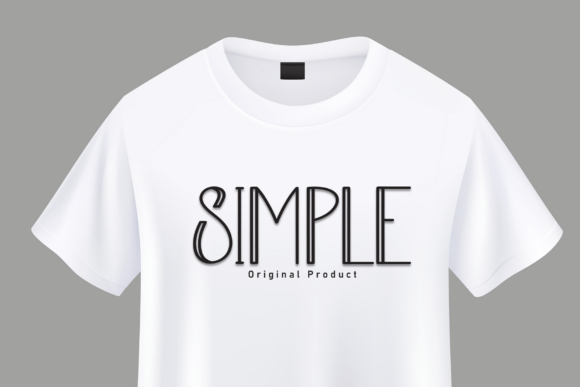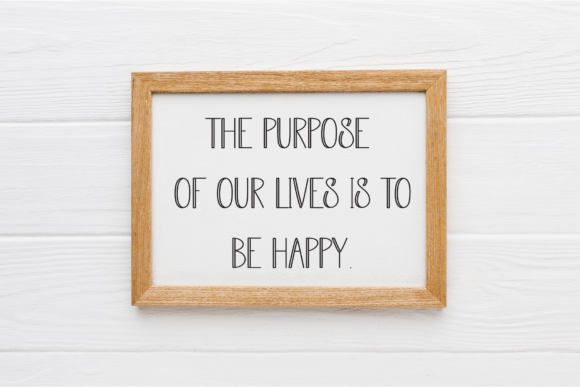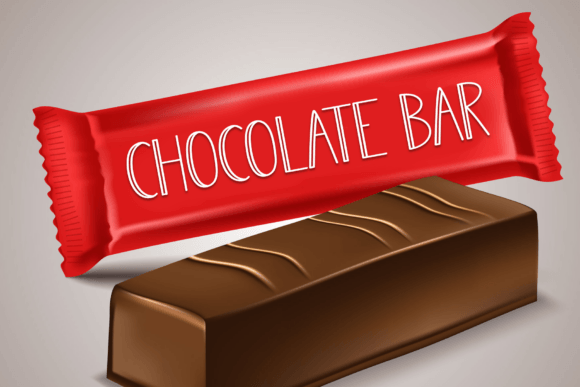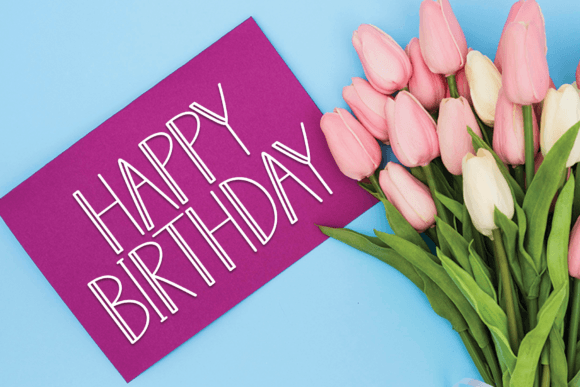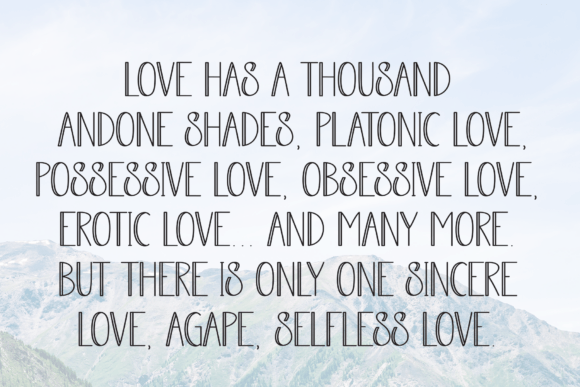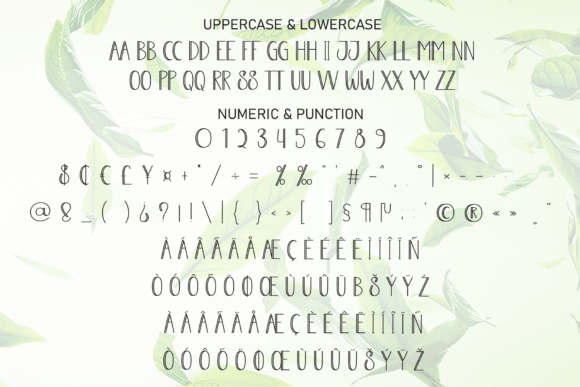
Introducing Greentea Font: The Perfect Blend of Whimsy and Charm
Are you tired of using the same old fonts for your design projects? Look no further! We’re excited to introduce Greentea Font, a charming and amiable handwritten display font that’s sure to bring a touch of sweetness and affability to your creations. This delightful font is perfect for designers and crafters who want to add a playful and lighthearted stroke to their work.
A Font that Brings Fun and Joy
Greentea Font is designed to bring an element of fun and joy to your design projects. Whether you’re creating wedding invitations, greeting cards, or any other type of design project, this font is sure to make it stand out. With its unique and eye-catching style, Greentea Font can effortlessly transform mundane text into a masterpiece that’s sure to capture the attention of your audience.
Wedding invitations and greeting cards are special occasions that deserve a font that’s just as special. Greentea Font is the perfect choice for these types of projects, as it adds a touch of elegance and sophistication while still being playful and fun. Imagine sending out wedding invitations that are not only informative but also visually stunning, or greeting cards that make the recipient feel special and loved.
Elevate Your Design Projects with Greentea Font
Greentea Font is not just limited to wedding invitations and greeting cards. This versatile font can be used to elevate any design project that needs a playful and lighthearted touch. Whether you’re designing a logo, creating a social media graphic, or working on a branding project, Greentea Font is sure to make it stand out. With its unique style and charm, this font can add a fresh and modern touch to any design project.
What Makes Greentea Font Special?
So, what makes Greentea Font so special? Here are just a few features that set it apart:
- Handwritten style: Greentea Font has a beautiful handwritten style that’s both charming and amiable.
- Unique and eye-catching: This font is sure to capture the attention of your audience with its unique and eye-catching style.
- Playful and lighthearted: Greentea Font is perfect for designers and crafters who want to add a playful and lighthearted touch to their work.
- Versatile: This font can be used for a wide range of design projects, from wedding invitations to logos and branding.
In conclusion, Greentea Font is a charming and amiable handwritten display font that’s sure to bring a touch of sweetness and affability to your design projects. With its unique and eye-catching style, this font is perfect for designers and crafters who want to add a playful and lighthearted stroke to their work. Whether you’re creating wedding invitations, greeting cards, or any other type of design project, Greentea Font is sure to make it stand out. So why not give it a try and see the difference it can make?